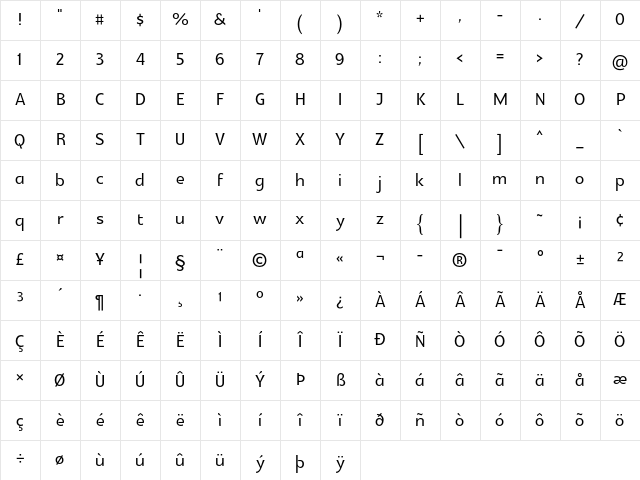
Glametrix Regular Free Font
Glametrix Regular
Foundry: gluk
Designer: gluk
Design Context for Glametrix
Glametrix is a composed and adaptable typeface that performs quietly and consistently across a wide range of design contexts.